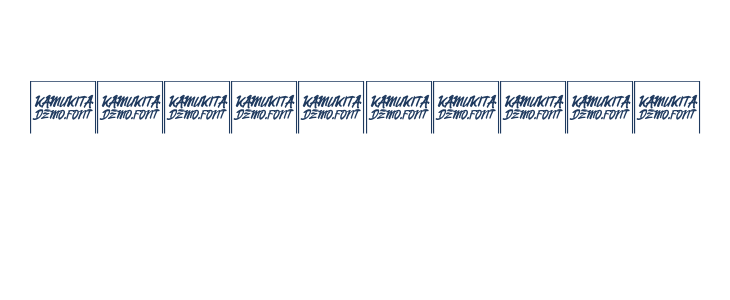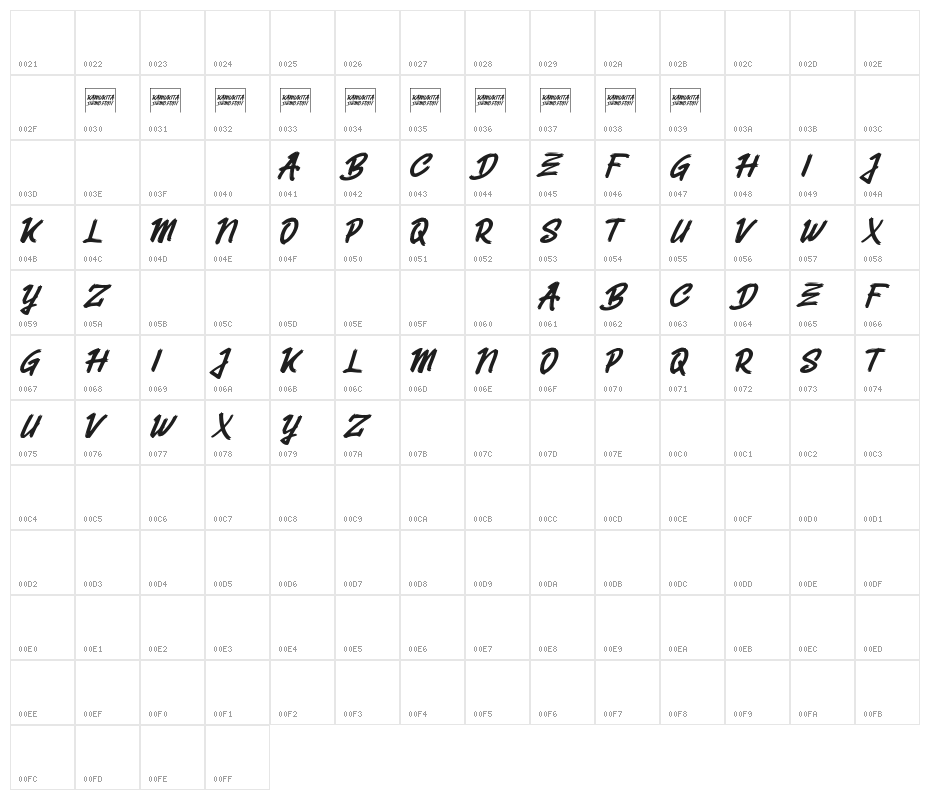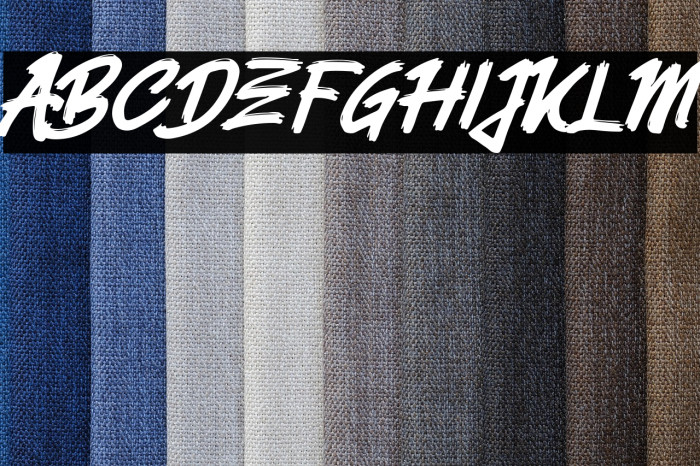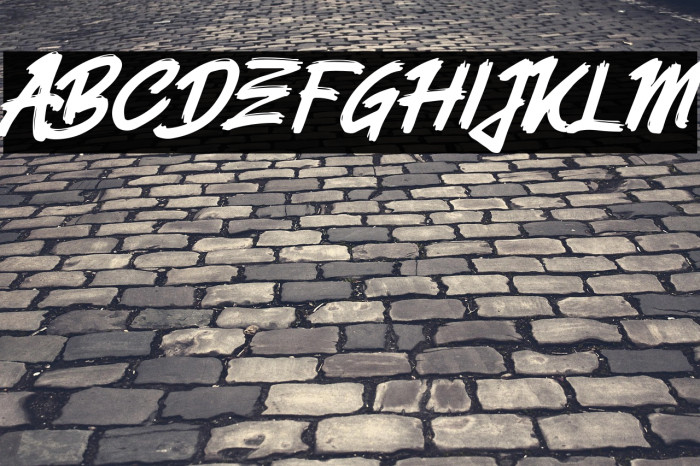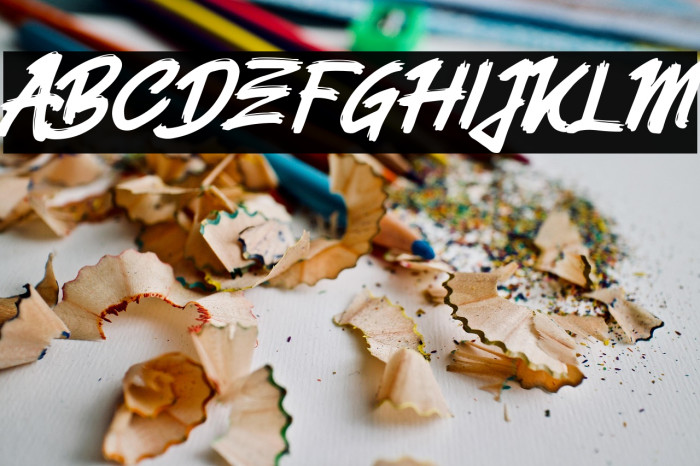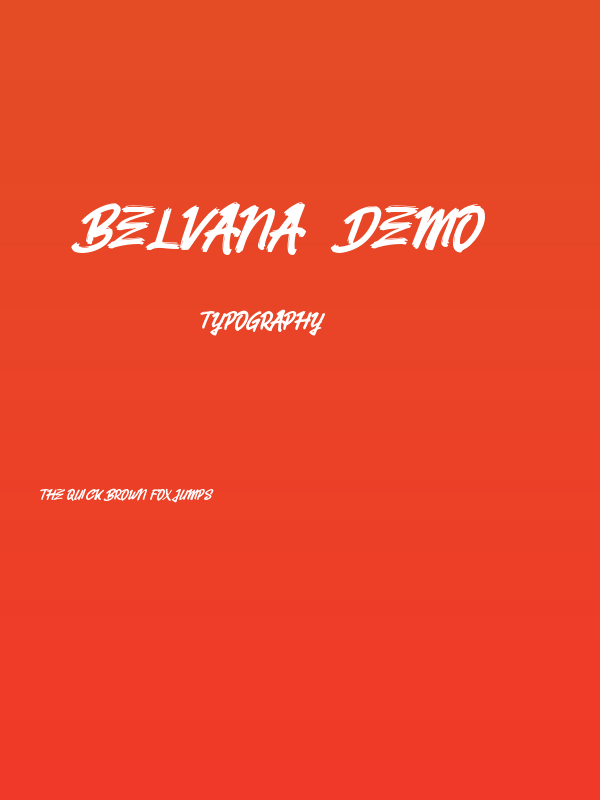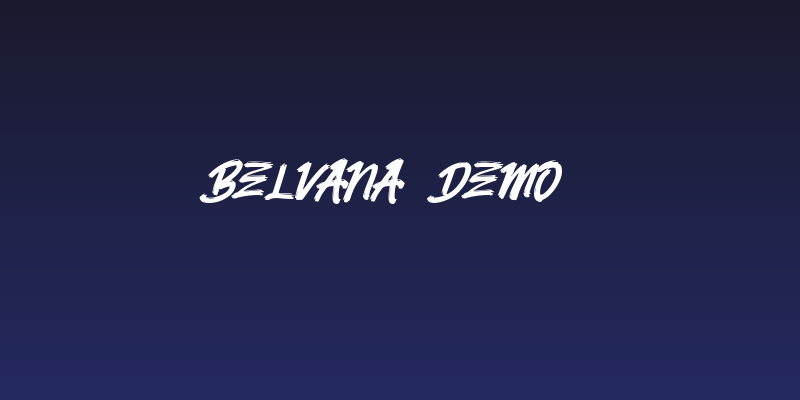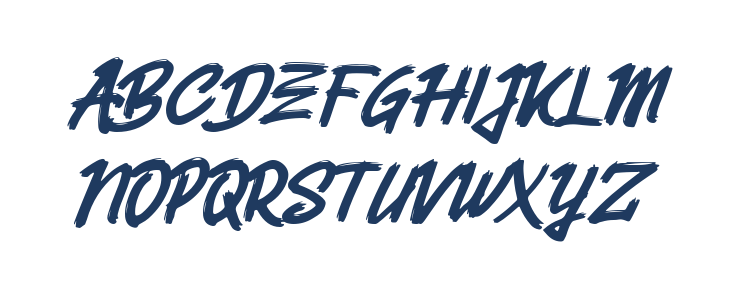
Belvana (demo) Font
Belvana (demo) Description
This font features a bold, energetic script style that exudes a sense of dynamic movement and flair. The strokes are thick and expressive, with a brush-like texture that adds a handcrafted feel. The letters are slightly slanted, enhancing the sense of motion and fluidity. This font is highly legible despite its artistic style, making it suitable for impactful designs. The uppercase and lowercase letters maintain a consistent style, with each character uniquely crafted to maintain the overall aesthetic. The font's boldness and distinctive style make it ideal for attention-grabbing headlines and creative projects.